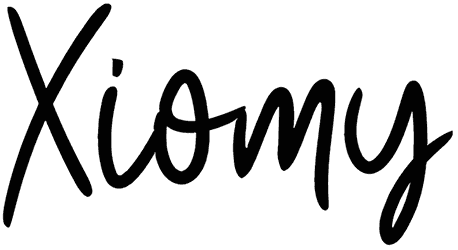
Xiomy Font
Designed byDon Marciano
For those who love personal and romantic stories, Xiomy is the font that can best bring their ideas to paper. This handwritten font can remove you from the standard framework and allow you to think outside the box.